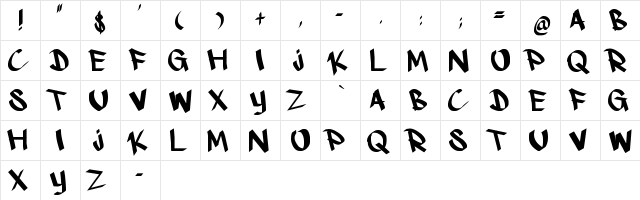
kshandwrt Regular Font Preview
kshandwrt Regular
kshandwrt Regular Font Details
Design Context for kshandwrt Typeface
kshandwrt flows with the natural rhythm of handwritten lettering, making it ideal for designs that call for warmth and personal expression.
Font Pairing: Combine kshandwrt with a simple geometric sans for maximum contrast — the tension between flowing curves and clean structure is a classic typographic pairing.
Pro Tip: Use kshandwrt for short runs of text — names, titles, or taglines. Extended body copy in script faces tires the eye quickly.